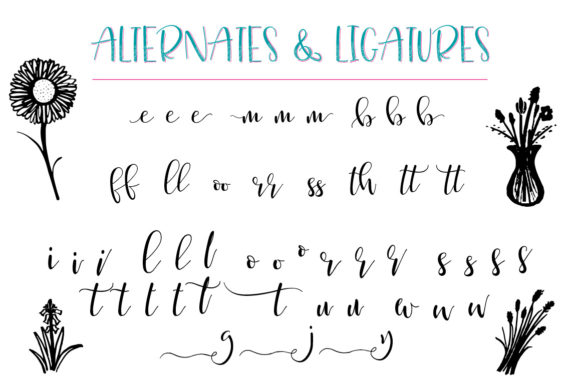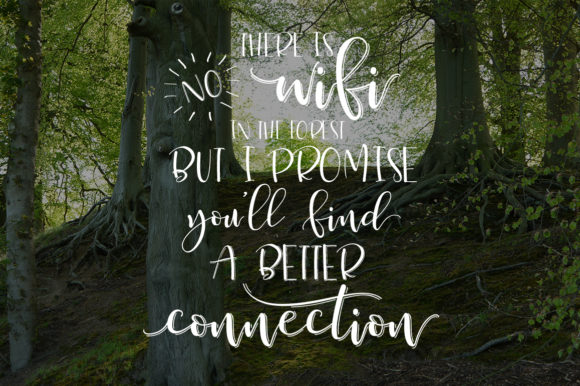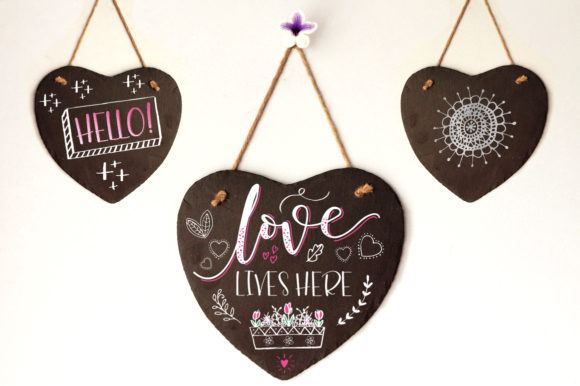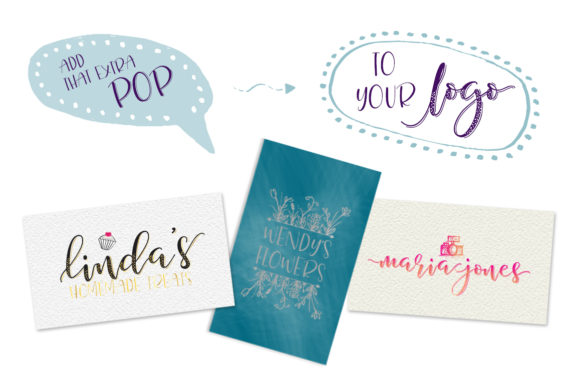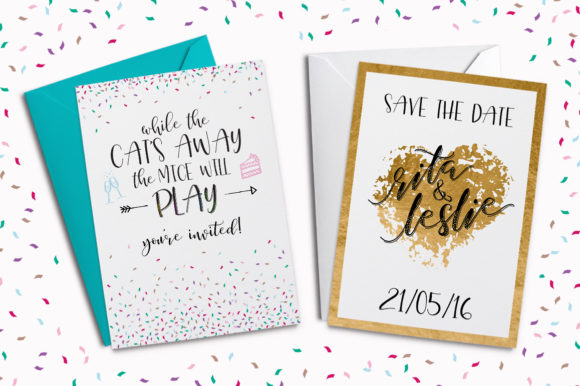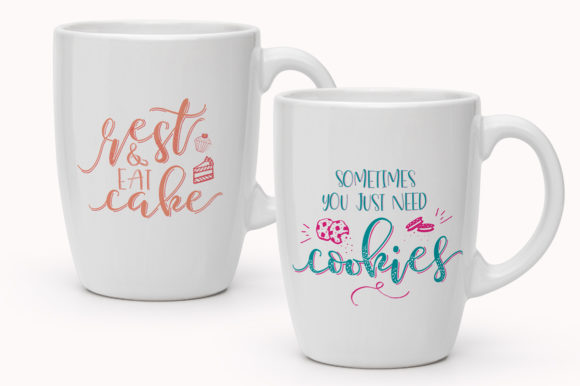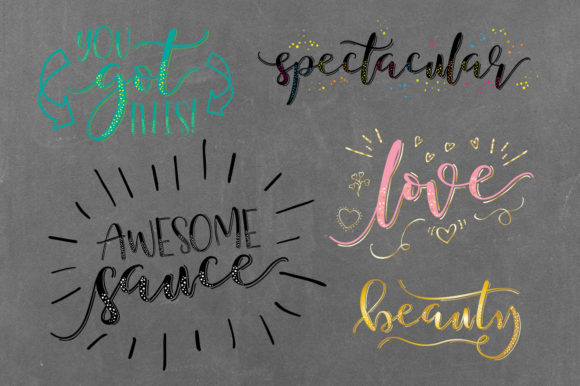
Just Write Font
About Just Write Font
Just Write is a stunning script featuring a gorgeous set of doodles. Use this amazing font to turn any design idea into a true work of art.